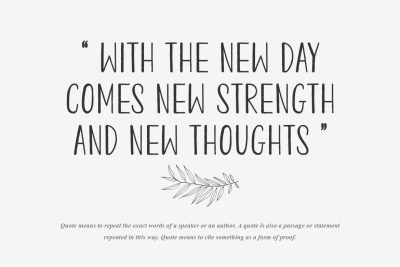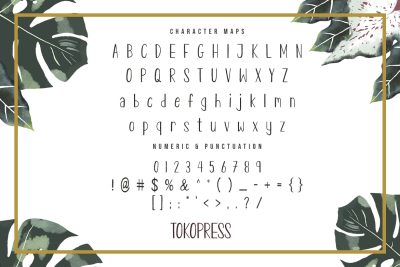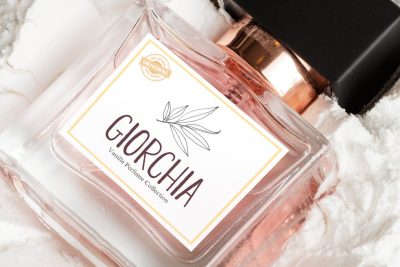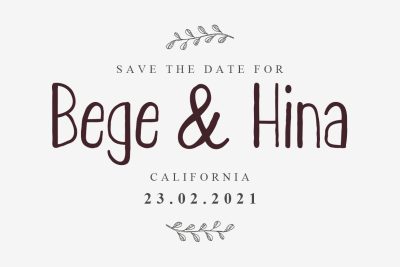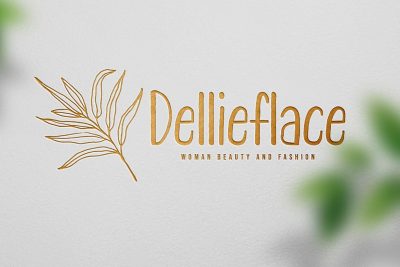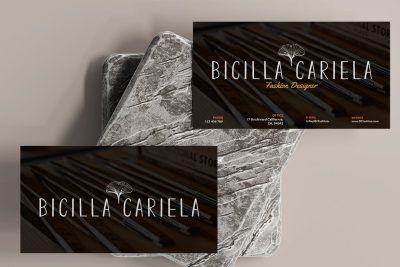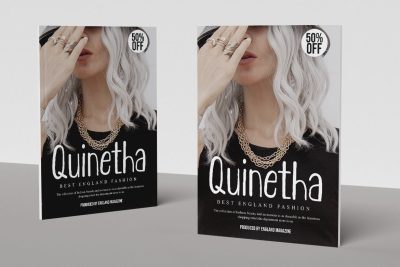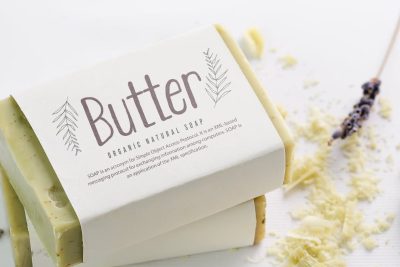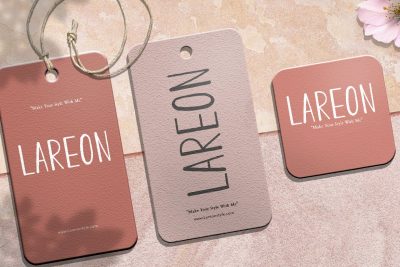
Cute Font Eirene
Cute Font Eirene is an elegantly designed handwritten font. It combines simplicity and sophistication in one delightful package. Its clean, smooth strokes and charming essence make it a standout choice for creative projects. The natural flow of its characters gives it an organic yet professional look. This makes it perfect for designers seeking a personal touch in their work. The font features well-proportioned letters with subtle variations. These details mimic authentic handwriting, giving it a modern and heartfelt feel.
The design strikes a delicate balance between beauty and readability. This font is remains highly legible while exuding a unique aesthetic appeal. Its graceful curves and carefully crafted details make it versatile for many applications. Whether used for branding, invitations, or packaging, this font adds a personal and friendly touch to any design.
Its subtle elegance also shines in digital formats. It pairs seamlessly with other fonts, whether for stunning headlines or minimalistic body text. Its versatility allows it to complement a wide range of themes. From feminine and playful to classic and refined, Cute Font Eirene adapts beautifully. It is more than just a typefaceโ€”it breathes life into creative endeavors.
Cute Font Eirene Perfect for
Eirene is ideal for many users, including designers, entrepreneurs, and hobbyists. Its playful elegance and friendly style are perfect for creative professionals. Graphic designers can use it as a go-to choice for crafting logos, social media graphics, and website headers. This font helps designs stand out from the crowd.
Entrepreneurs in fashion, beauty, and lifestyle industries will also benefit. The font is ideal for creating product labels, business cards, and store signage. Its charm captures customer attention and builds a strong visual identity. Businesses targeting female audiences will find its approachable yet refined look especially appealing.
Hobbyists and DIY enthusiasts can also enjoy Cute Font Eirene. Itโ€™s perfect for personalizing greeting cards, scrapbooks, or digital invitations. Its polished yet warm touch enhances any creative project. Bloggers and content creators can use it to add character to posts, thumbnails, or newsletters.
Overall, Cute Font Eirene is a versatile typeface for professional and personal use. Its elegant yet approachable vibe resonates with a wide audience. Whether for bold statements or subtle charm, this font delivers every time.
Calm and cute speaks like a soft feather with smoothness all over it. Suit perfectly for female segmented magazine, poster, movie title, etc.